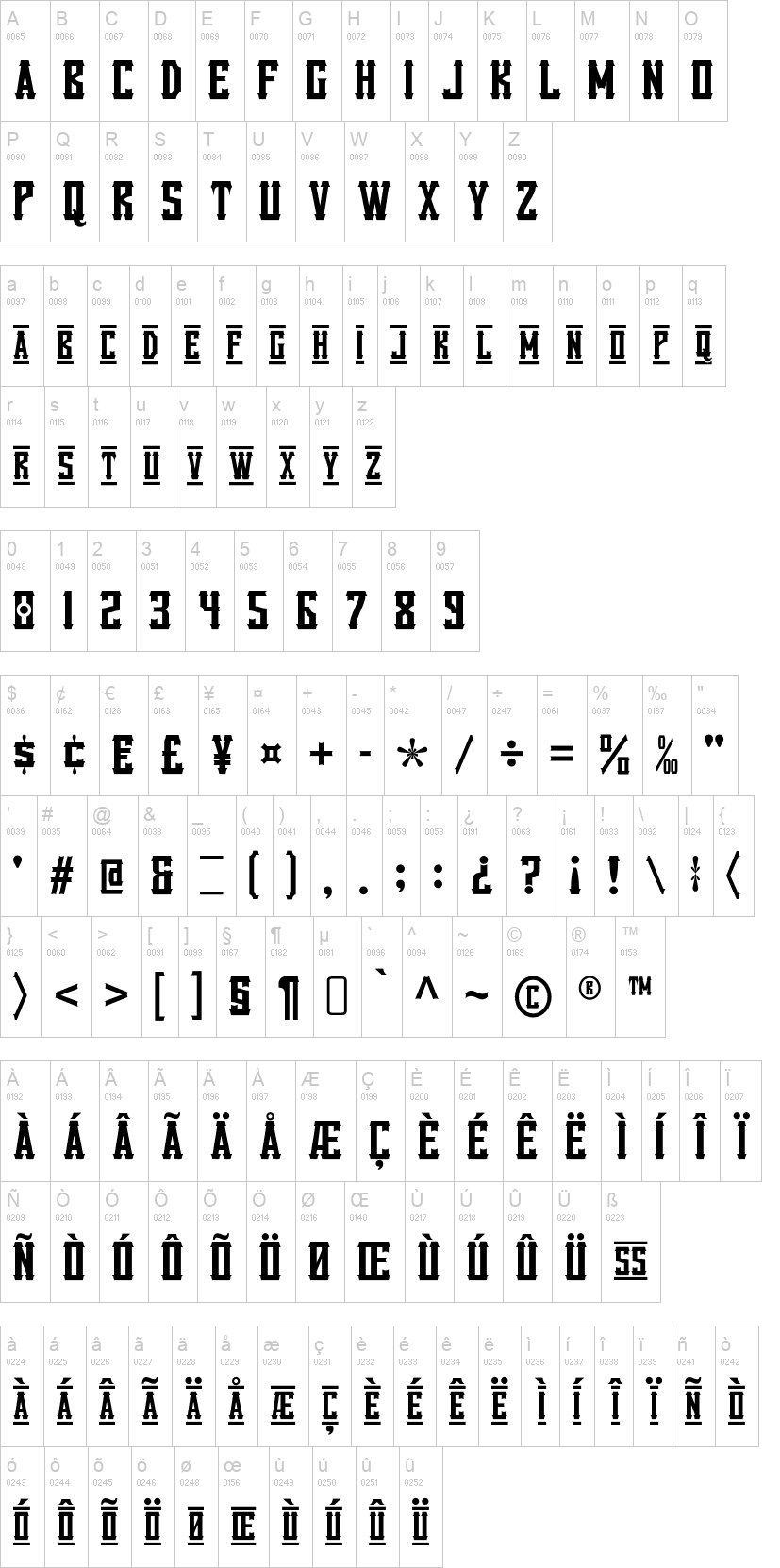
Vanilla Whale narrow slab serif display typeface with unusual small-caps. Its rustic, rugged curves and western style serifs will add a sense of western elegance and gruff confidence to your message. For an interesting effect, use a capital letter at the end of a word. Most Latin-based European writing systems are supported, including the following languages. Afaan Oromo, Afar, Afrikaans, Albanian, Alsatian, Aromanian, Aymara, Bashkir (Latin), Basque, Belarusian (Latin), Bemba, Bikol, Bosnian, Breton, Cape Verdean, Creole, Catalan, Cebuano, Chamorro, Chavacano, Chichewa, Crimean Tatar (Latin), Croatian, Czech, Danish, Dawan, Dholuo, Dutch, English, Estonian, Faroese, Fijian, Filipino, Finnish, French, Frisian, Friulian, Gagauz (Latin), Galician, Ganda, Genoese, German, Greenlandic, Guadeloupean Creole, Haitian Creole, Hawaiian, Hiligaynon, Hungarian, Icelandic, Ilocano, Indonesian, Irish, Italian, Jamaican, Kaqchikel, Karakalpak (Latin), Kashubian, Kikongo, Kinyarwanda, Kirundi, Kurdish (Latin), Latvian, Lithuanian, Lombard, Low Saxon, Luxembourgish, Maasai, Makhuwa, Malay, Maltese, Māori, Moldovan, Montenegrin, Ndebele, Neapolitan, Norwegian, Novial, Occitan, Ossetian (Latin), Papiamento, Piedmontese, Polish, Portuguese, Quechua, Rarotongan, Romanian, Romansh, Sami, Sango, Saramaccan, Sardinian, Scottish Gaelic, Serbian (Latin), Shona, Sicilian, Silesian, Slovak, Slovenian, Somali, Sorbian, Sotho, Spanish, Swahili, Swazi, Swedish, Tagalog, Tahitian, Tetum, Tongan, Tshiluba, Tsonga, Tswana, Tumbuka, Turkish, Turkmen (Latin), Tuvaluan, Uzbek (Latin), Venetian, Vepsian, V�ro, Walloon, Waray-Waray, Wayuu, Welsh, Wolof, Xhosa, Yapese, Zapotec Zulu and Zuni.